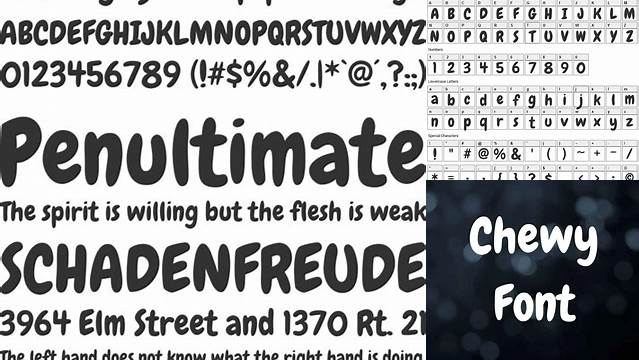
Hey guys! Are you on the hunt for a fun, playful, and chewy font to add some zest to your design projects? Well, you've landed in the right place! In this comprehensive guide, we're diving deep into the world of the Chewy Regular font, exploring its origins, characteristics, ideal uses, and, most importantly, where you can snag it for free. Whether you're a seasoned designer or just starting your creative journey, this article will give you all the juicy details you need to know about this delightful typeface. So, let's get started and unleash the power of Chewy Regular! This font has a unique personality, which makes it stand out from the crowd of generic typefaces. Think about using this font for branding materials, social media graphics, or even a children’s book! The possibilities are endless, and the Chewy Regular font is here to help bring your vision to life. Choosing the right font is like picking the perfect ingredient for a recipe; it can make or break the final product. The Chewy Regular font is that special ingredient that can add a touch of whimsy and fun to your designs. Imagine your text bouncing off the page with a playful energy – that's the magic of this font. It's not just about aesthetics; it's about creating an emotional connection with your audience. When people see your designs, you want them to feel something, whether it's joy, excitement, or curiosity. The Chewy Regular font helps you achieve this by injecting personality and character into your text. It's like giving your words a voice, a smile, and a sense of humor.
What is Chewy Regular Font?
So, what exactly is Chewy Regular? It’s more than just a font; it’s a typographic treat! Designed with a rounded, bubbly appearance, this font exudes a friendly and approachable vibe. Imagine the soft, chewy texture of your favorite candy – that's the essence of this typeface. It's a display font, meaning it’s best suited for headlines, logos, posters, and other eye-catching elements. Think of it as the star of the show, not the supporting cast. Chewy Regular is a sans-serif font, which means it doesn't have those little decorative strokes (serifs) at the ends of the letters. This gives it a clean, modern look, perfect for a variety of applications. Its playful curves and irregular letterforms add a touch of whimsy, making it a fantastic choice for projects that need a dash of fun and personality. The font family includes the Regular style, which is the star of our show today, but there might be other weights or styles available depending on the designer’s creation. The beauty of Chewy Regular lies in its versatility. It’s not just for kids’ projects or lighthearted designs. While it certainly shines in those areas, it can also be used in unexpected ways to create contrast and interest. Imagine using it for a tech startup’s branding to convey a sense of approachability and innovation. Or perhaps in a food-related design to evoke the feeling of something delicious and satisfying. The key is to experiment and see how Chewy Regular can elevate your designs. It’s a font that demands attention, so make sure to use it wisely and let its unique personality shine through.
Key Characteristics of Chewy Regular
Let’s break down the key characteristics that make Chewy Regular so special. First off, it's all about those rounded edges! The soft, curved shapes of the letters give it a warm and inviting feel. It’s like a friendly hug in typographic form. The letterforms are slightly irregular, which adds to its playful charm. It's not your typical rigid, geometric sans-serif; it has a unique personality that sets it apart. The weight of the font is also a crucial factor. Chewy Regular is bold enough to make a statement but not so heavy that it becomes overwhelming. It strikes a perfect balance between readability and visual impact. This makes it ideal for headlines and titles, where you want to grab attention without sacrificing clarity. Another important characteristic is its legibility. Despite its playful design, Chewy Regular remains highly readable, even at smaller sizes. This is essential for ensuring your message gets across clearly. Think about using it on websites, where users need to be able to read the text easily. The spacing between the letters (kerning) and lines (leading) is also well-balanced, contributing to its overall readability. The overall impression of Chewy Regular is one of fun, friendliness, and approachability. It’s a font that makes you smile, and that’s a powerful asset in the world of design. Whether you’re creating a logo, a poster, or a social media graphic, Chewy Regular can help you inject some personality and warmth into your project. It’s a font that stands out from the crowd, and it’s sure to leave a lasting impression on your audience. So, if you’re looking for a typeface that’s both playful and professional, Chewy Regular might just be the perfect choice for you.
Ideal Uses for Chewy Regular Font
Now, where can you put this awesome font to work? The ideal uses for Chewy Regular are vast and varied, limited only by your imagination! It’s a natural fit for projects aimed at children, such as books, games, and educational materials. Its playful and friendly nature makes it instantly appealing to young audiences. Think about using it for birthday invitations, party decorations, or even a children’s clothing brand. It’s also a fantastic choice for branding and marketing materials that want to convey a sense of fun and approachability. Imagine a coffee shop using Chewy Regular in its logo and signage to create a welcoming atmosphere. Or a food brand using it on packaging to evoke a feeling of deliciousness and joy. The font’s playful personality can help brands connect with their target audience on an emotional level. Social media graphics are another excellent application for Chewy Regular. Its bold and eye-catching design makes it perfect for grabbing attention in a crowded newsfeed. Use it for headlines, captions, or even as a design element in your visuals. It’s a great way to add some personality to your online presence. Websites and blogs can also benefit from the use of Chewy Regular. It’s a fantastic choice for headings and subheadings, adding visual interest and character to your content. Just be mindful of using it sparingly and pairing it with a more neutral body text font for optimal readability. Posters and flyers are another area where Chewy Regular shines. Its bold and playful design makes it perfect for attracting attention and conveying a sense of fun. Think about using it for event promotions, advertisements, or even movie posters. Overall, Chewy Regular is a versatile font that can be used in a wide range of applications. Its playful personality and excellent readability make it a valuable asset for any designer or creative professional. So, go ahead and experiment with it! You might be surprised at the amazing results you can achieve.
Tips for Using Chewy Regular Effectively
Now that you've got Chewy Regular in your font arsenal, let's talk about how to use it effectively. This font, while super fun, needs to be handled with a bit of finesse to truly shine. First and foremost, think about context. Chewy Regular is a display font, meaning it’s best used for headlines, titles, and other short bursts of text. Avoid using it for large blocks of body text, as its playful nature can become tiring on the eyes after a while. Pair it with a more neutral and readable font for body text, such as Open Sans, Lato, or Montserrat. This creates a visual hierarchy and ensures your content is easy to read. Color is another crucial element to consider. Chewy Regular works well in bold, vibrant colors that complement its playful personality. Think about using bright blues, greens, yellows, or oranges to make your text pop. However, be mindful of contrast. Make sure your text is easily readable against the background color. White text on a dark background or dark text on a light background generally works best. Size matters too! Chewy Regular looks great at larger sizes, where its unique letterforms can really shine. Experiment with different sizes to see what works best for your design. Don’t be afraid to go big and bold! Spacing is another important factor to consider. Pay attention to the kerning (the space between letters) and the leading (the space between lines). Adjust these settings as needed to ensure your text is readable and visually appealing. Sometimes, a little bit of extra space can make a big difference. Don't overuse it! Chewy Regular is a font that demands attention, so use it sparingly to create impact. If you use it too much, it can lose its effectiveness. Think of it as the star of the show, not the entire cast. Finally, have fun and experiment! Chewy Regular is a font that encourages creativity, so don’t be afraid to try new things and see what works. Mix it with different colors, sizes, and other fonts to create unique and eye-catching designs. With a little practice, you’ll be a Chewy Regular pro in no time!